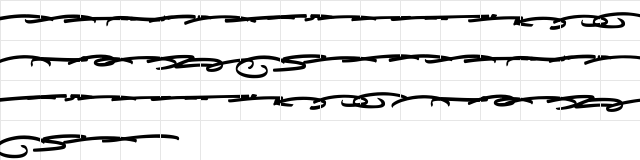
Gilligan Coast Swash Regular
Design Context for Gilligan Coast Swash Typeface
Gilligan Coast Swash brings a calligraphic fluidity to the page — its connecting strokes and expressive curves give it an unmistakably human quality.
Font Pairing: Combine Gilligan Coast Swash with a simple geometric sans for maximum contrast — the tension between flowing curves and clean structure is a classic typographic pairing.
Pro Tip: Use Gilligan Coast Swash for short runs of text — names, titles, or taglines. Extended body copy in script faces tires the eye quickly.